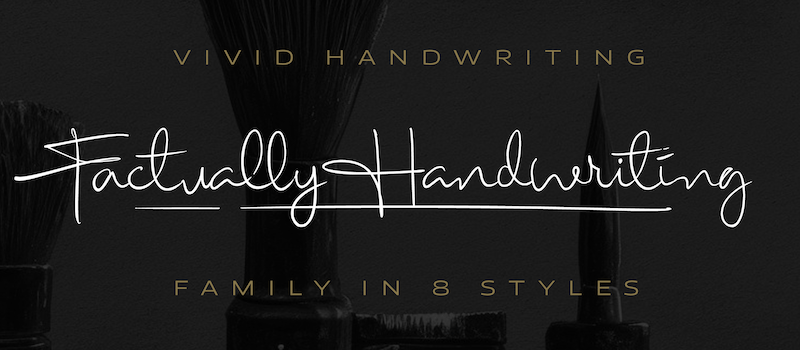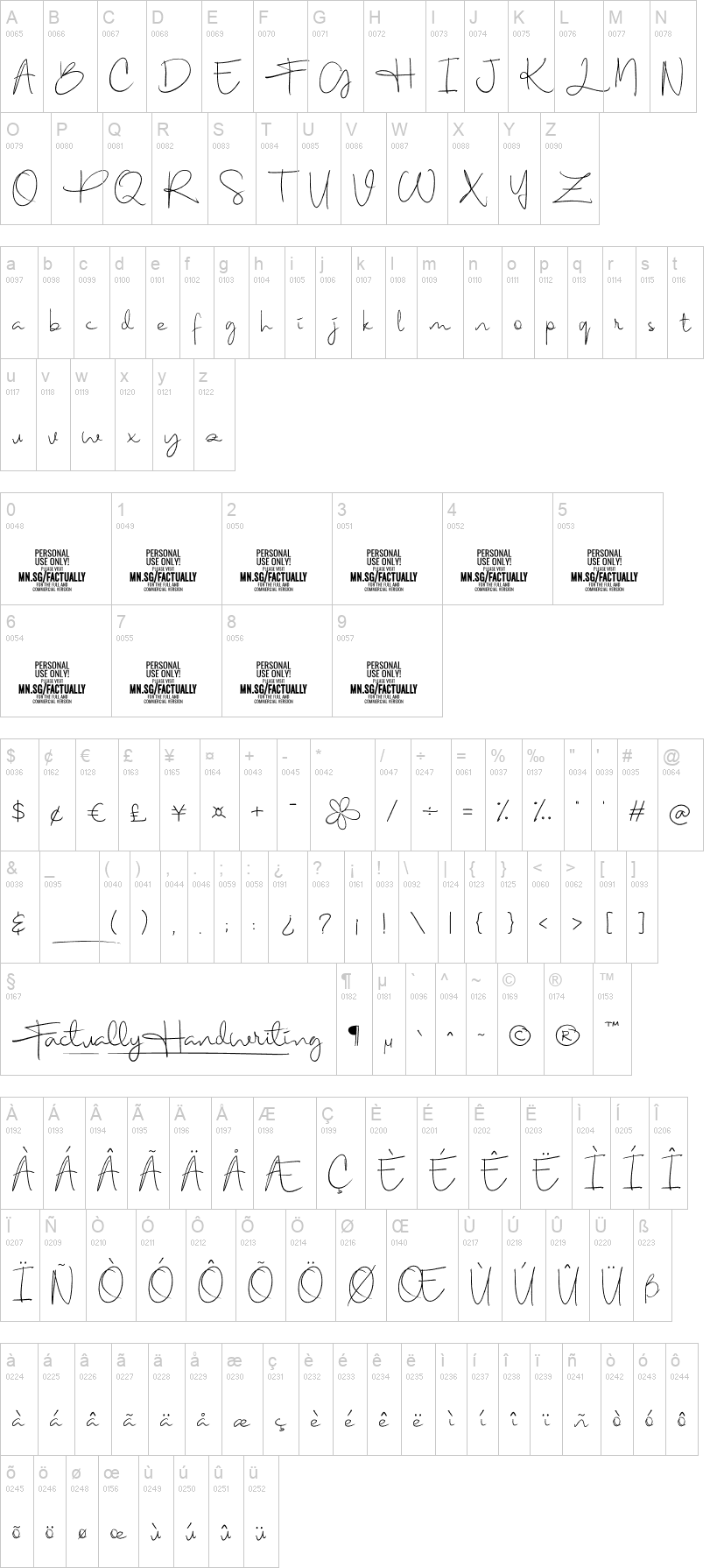
Factually Handwriting
Use undercore _ anywhere in a to make a swash.
Example: Hand_Signature
Use multiple underscores to make different swashes.
Example: Candy___Bars
Use * to make flowers!
Beautiful*Spring
Blue***Roses